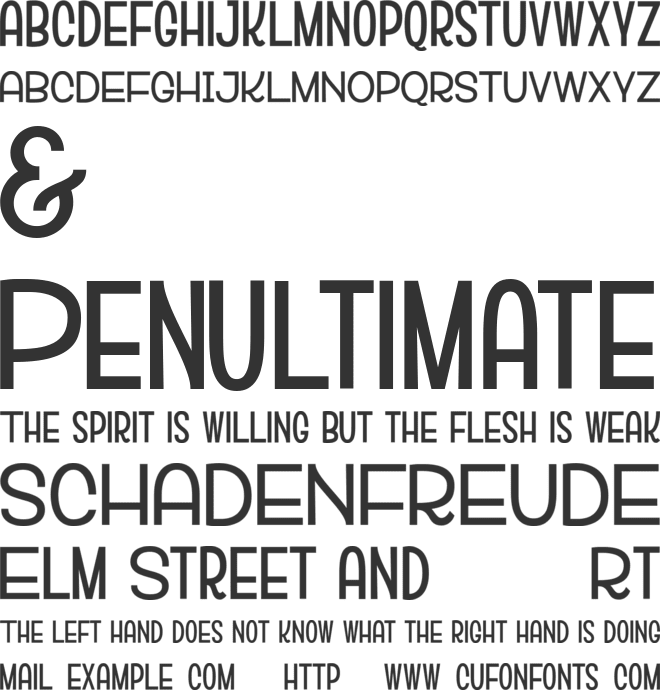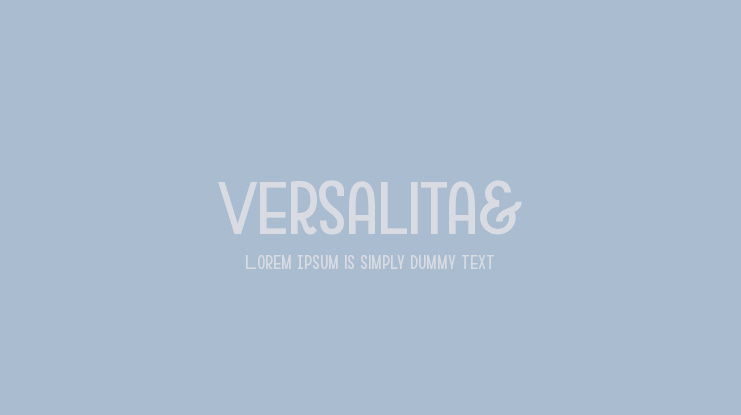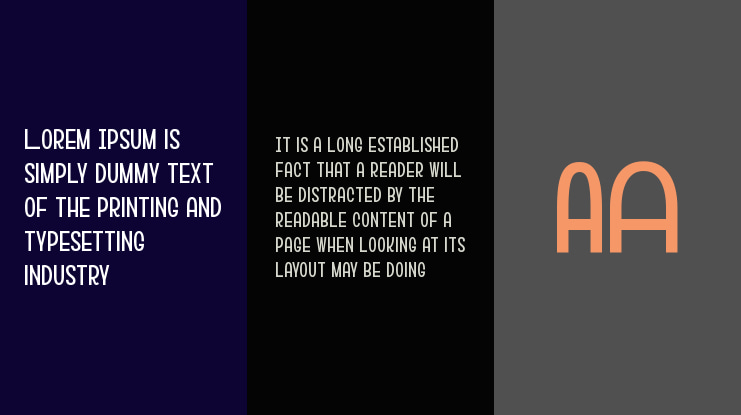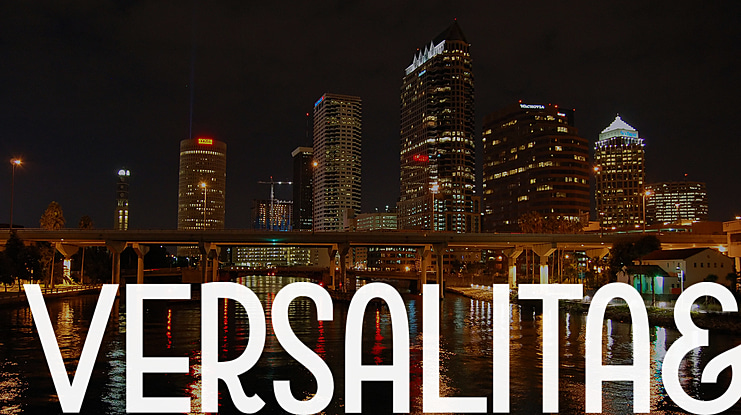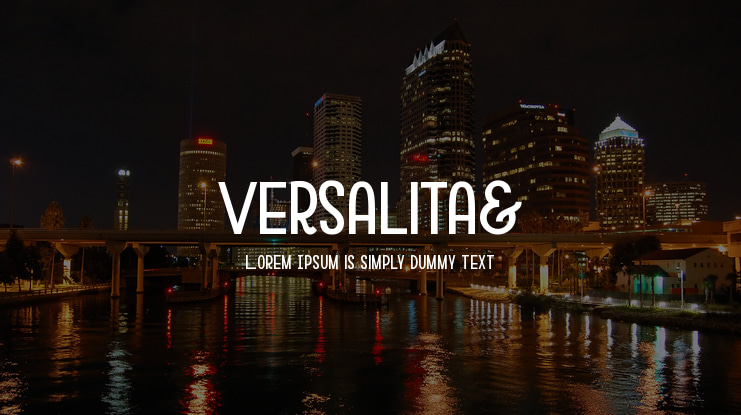
Versalita& Font Family
This is VERSALITA&, It's a sans serif font that contains upper case, lower case in versalite, and an alternative of every letter in a smaller size. It has more than 450 characters. The idea is that everyone could have the possibility to mix the letters and create multiple alternatives of the same words.
FEATURES: - +450 characters (letters: upper case + lower case + versalites) - +250 special characters and numbers +90 ligatures
Ligatures: - L + lower case - T + lower case - t + T + lower case
DEMO FEATURES: - upper case alphabet - lower case alphabet - versalites (small alphabet) - L + a,e,i,o,u ligatures - T + a,e,i,o,u ligatures - t + T + a,e,i,o,u ligatures